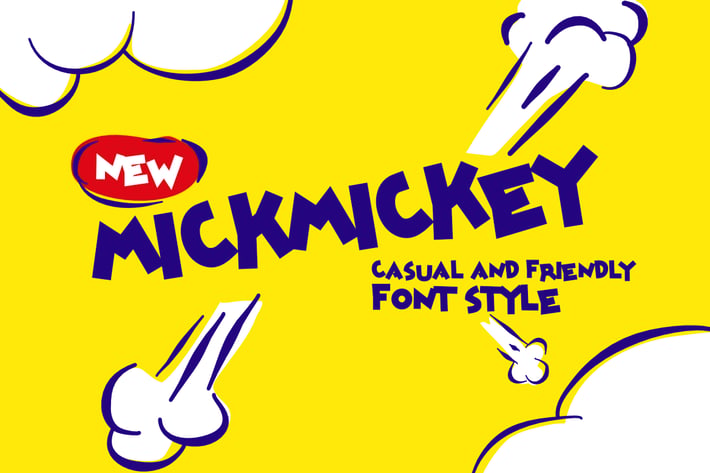
Mickmickey friendly casual font
Need no introduction
This is a good font :
Casual
friendly
kid theme
display or headline usage is better
good in bright vibrant color
happy feeling and excite